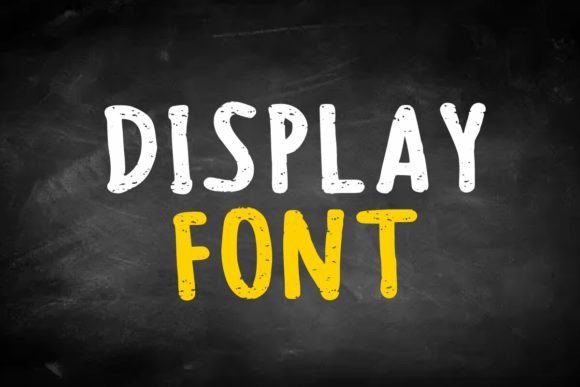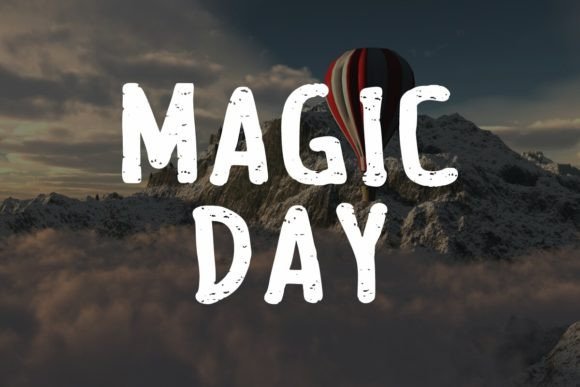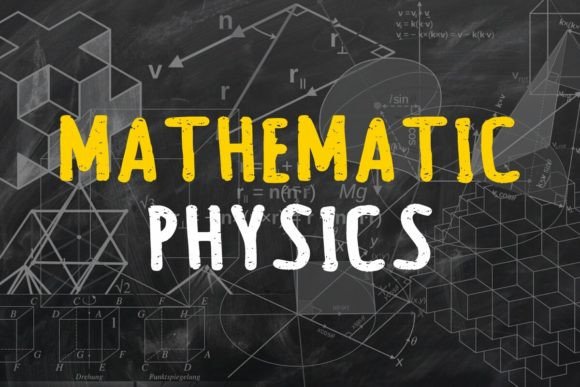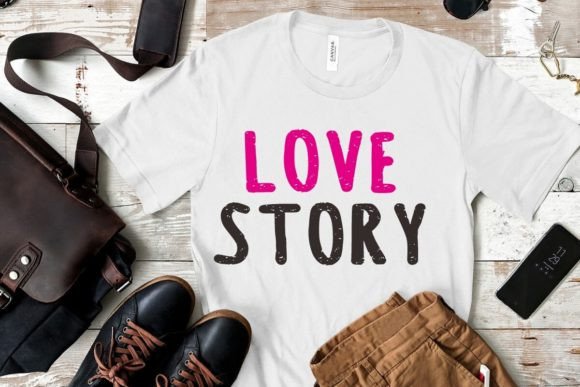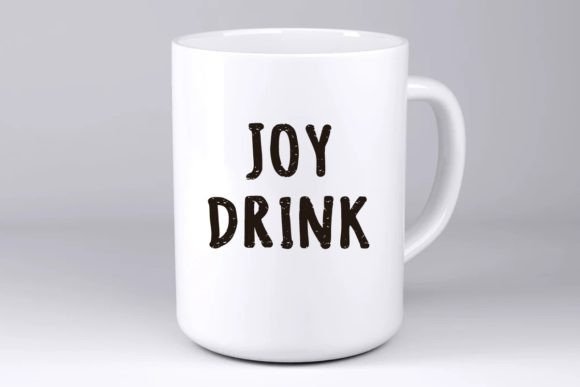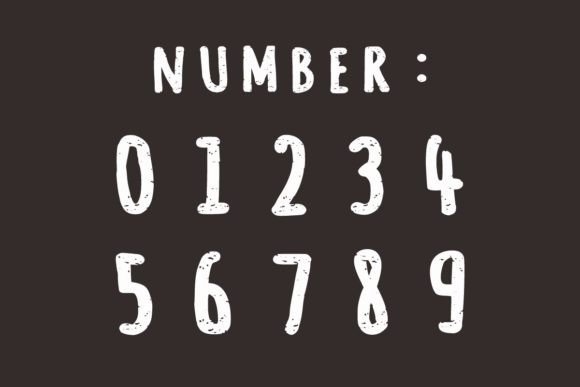
Unleash Your Creativity with the Perfect Font
You know that moment when a font just clicks, and your design goes from meh to mesmerizing? For designers, finding the right font can be the difference between a project that’s just okay and one that truly stands out. And if you’re looking for a font that’s sure to make a statement, you might want to consider the Chalk School Font.
This cool and bold display font is perfect for a wide range of projects, from blog posts and logos to branding, ads, and invitations. Its versatility and unique style make it a valuable addition to any designer’s toolkit. Whether you’re working on a personal project or a client brief, the Chalk School Font is sure to bring a touch of personality and creativity to your design.
Key Features of Chalk School Font
- Font Family: Chalk School Font is a unique, handwritten font family with multiple styles and weights, including regular, bold, and italic.
- Character Set: Supports a wide range of languages, including Latin, Greek, and Cyrillic alphabets, as well as various diacritical marks.
- Unique Characteristics: Features a playful, hand-drawn aesthetic with subtle imperfections, giving it a charming and personal feel.
Designer Review: Chalk School Font
Overall, I think Chalk School Font has some lovely qualities that make it a great addition to any design project. ✨ The subtle imperfections and textures give it a charming, hand-drawn feel that’s perfect for educational materials, posters, or other designs where a more casual tone is desired.
One of the things I love about Chalk School Font is its versatility. It comes in a range of weights, from light to bold, making it easy to use in a variety of contexts. The font also includes a range of punctuation marks and special characters, which can be a big time-saver when designing.
While Chalk School Font is a great choice for many projects, there are a few limitations to be aware of. ⚠️ The font can be a bit difficult to read at small sizes, and the texture can sometimes make it hard to distinguish between similar letters. Additionally, the font’s imperfections can sometimes make it look a bit uneven or inconsistent.
In terms of overall impression, I think Chalk School Font is a great choice for designers who want to add a touch of personality to their projects. While it may not be the best choice for every project, it’s definitely worth considering for educational materials, posters, and other designs where a more casual tone is desired.
- ✨ Charming, hand-drawn feel
- ✨ Versatile, with a range of weights and punctuation marks
- ⚠️ Can be difficult to read at small sizes
- ⚠️ Texture can make it hard to distinguish between similar letters
Chalk School Font: A Practical Application Guide
Tips for Getting the Most Out of Chalk School Font
Here are some tips to help you get the most out of Chalk School Font:
- Use it sparingly to add a touch of whimsy to your designs.
- Pair it with other fonts to create a unique and interesting font combination.
- Experiment with different font sizes and colors to add visual interest.
- Choose a chalkboard background image or texture.
- Use the Chalk School Font to create menu item headings and descriptions.
- Combine with hand-drawn illustrations or graphics for a playful touch.
Project 2: Chalk Art Illustrations
Create whimsical illustrations using the Chalk School Font. This font is perfect for adding a playful, hand-drawn feel to your design.
Project 3: Chalkboard Wedding Invitation
Create a unique and personalized wedding invitation using the Chalk School Font. This font is perfect for adding a vintage, romantic touch to your design.